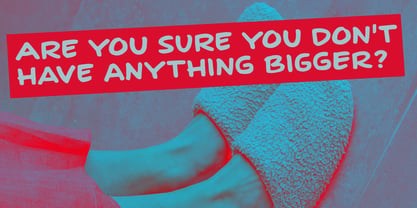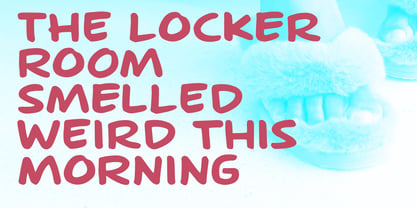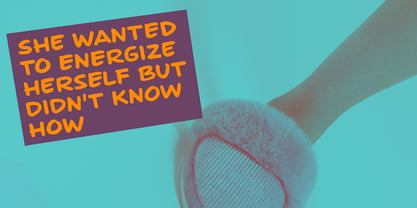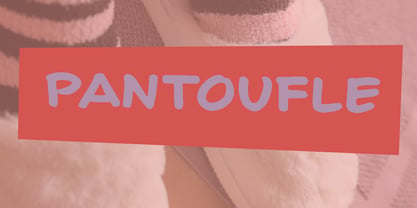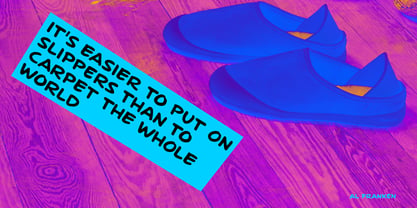
Pantoufle Pro
Die Schriftfamilie Pantoufle Pro wurde von David Kerkhoff entworfen und von Hanoded veröffentlicht. Pantoufle Pro enthält 2 Stile und Familienpaketoptionen. Mehr über diese Familie
Pantoufle is French for slipper. Not the flipflop variety (or thongs if you’re from Australia), but the one you wear indoors when it’s cold. I have some too; Spanish ones, made from recycled PET bottles. Here in Holland, we call them ‘Pantoffels’ and you don’t have to be a language expert to see the resemblance between the French and the Dutch word. That is because the French are probably more savvy when it comes to keeping your feet warm and the Dutch just borrowed the word, pronunciation and all!
Pantoufle is a font I made with a big fat marker pen. My kids had used it to decorate some gifts for Sinterklaas (if you want to know what Sinterklaas is, look it up).
Pantoufle comes with extensive language support and a full set of alternates for the lower case glyphs.
Enjoy!
Hanoded is run by Dutchman David Kerkhoff. His fonts are a mishmash of styles, as he just creates whatever pops into his head. You will find a lot of brush fonts in his collection, as his favourite tools are brushes and Chinese ink, with cartoon style fonts and script fonts complementing his repertoire. Aside from making fonts, David occasionally guides tours in far-flung places, renovates his '30's house and tries reasoning with his wife and (teenage) kids. Not an easy task!